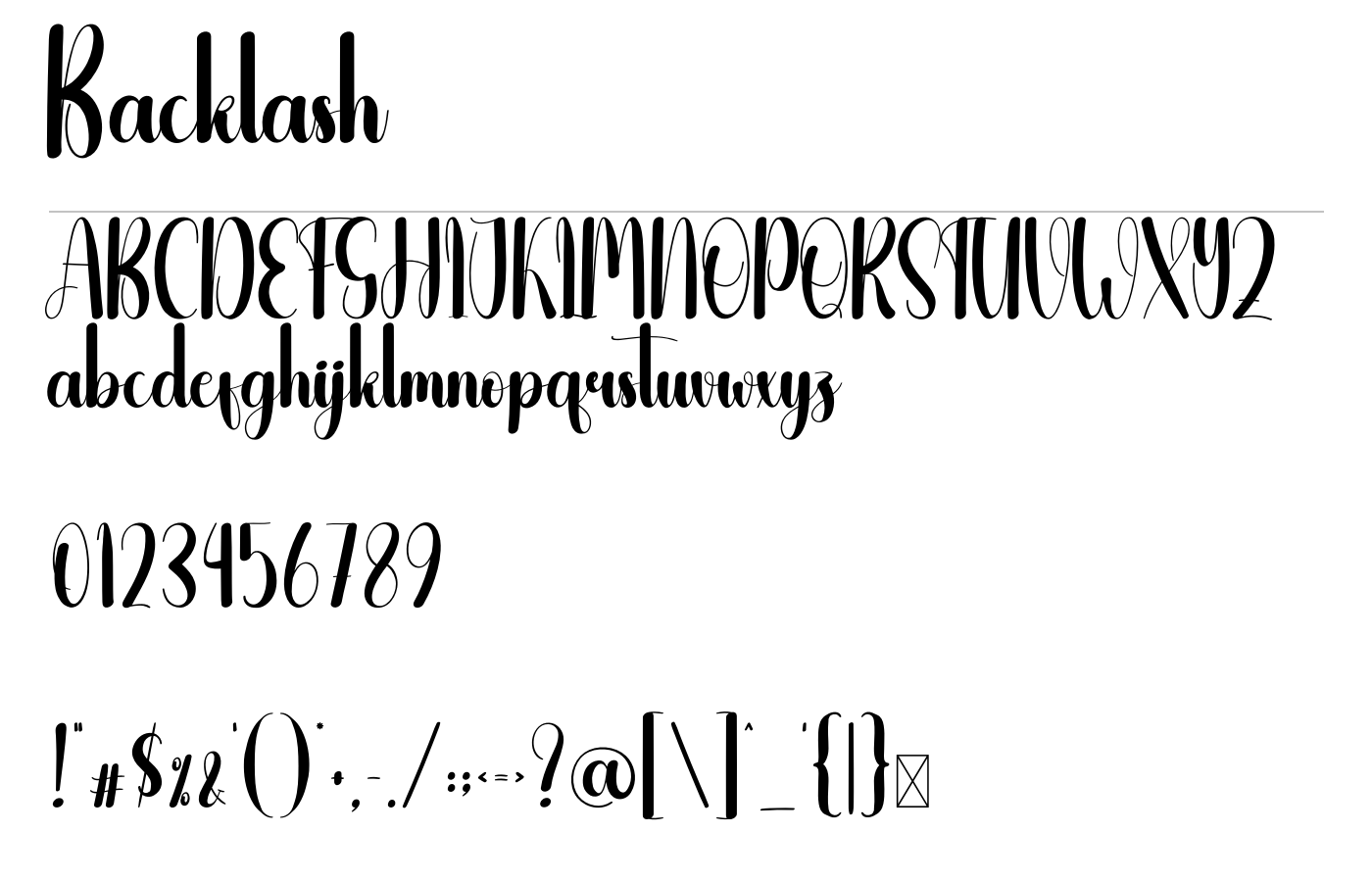
Backlash is a playful and elegant script font featuring tall, narrow letterforms with a lively mix of thick and thin strokes. Its unique flourish details and contrasting weights give it a stylish, hand-lettered feel perfect for creative branding, invitations, and eye-catching headlines. This font shines where a touch of personality and sophistication is needed to stand out.
Backlash Font